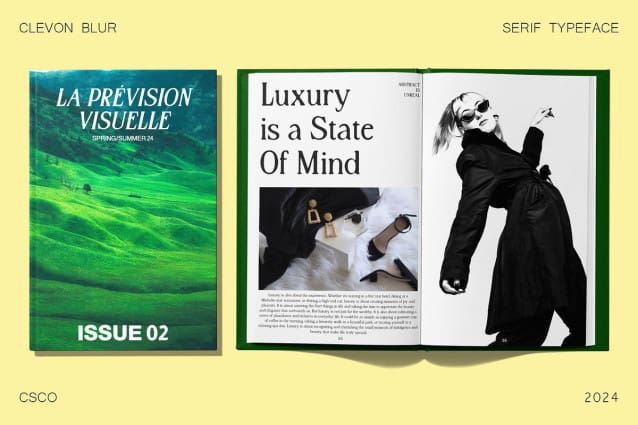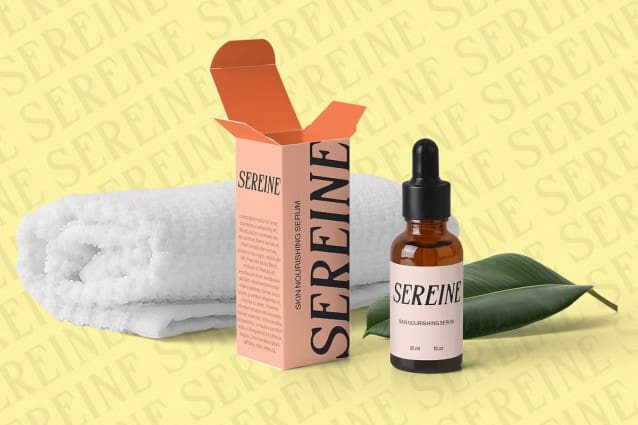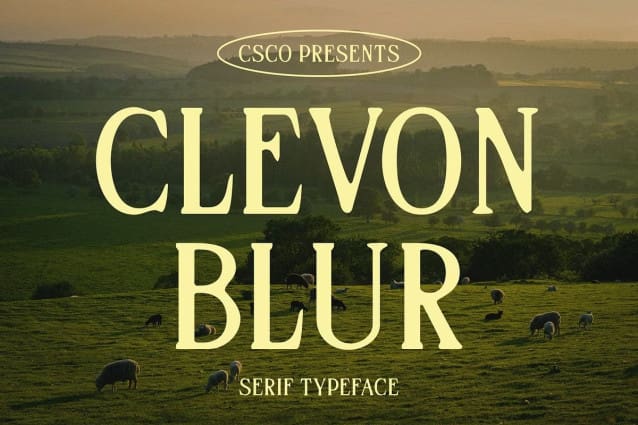
Clevon Blur Font
Clevon Blur Font is a serif font that combines retro charm with a blurred aesthetic, making it perfect for striking displays. Its unique design brings a nostalgic feel while adding a modern, artistic touch.
Designed for maximum impact, ClevonBlur excels in headlines, posters, and other display applications. The blurred effect adds a sense of depth and movement, ensuring your message captures attention.
With its retro-inspired design, Clevon Blur adds a vintage vibe to any project. The serif details and blurred effect create a stylish and memorable look, ideal for both digital and print media.
Elevate your designs with Clevon Blur, where retro elegance meets modern blur. Its distinctive style makes it a perfect choice for projects that need to stand out with a unique, nostalgic charm.